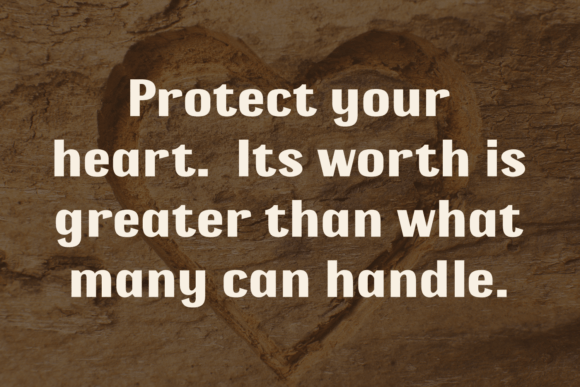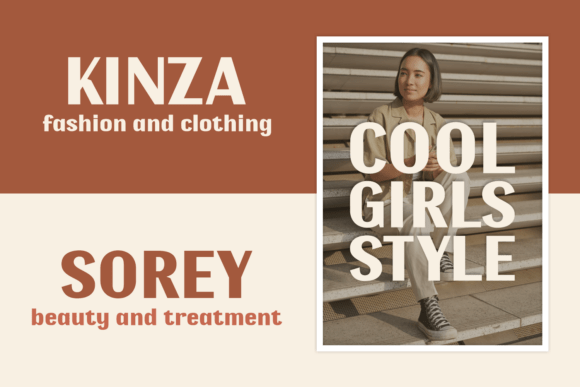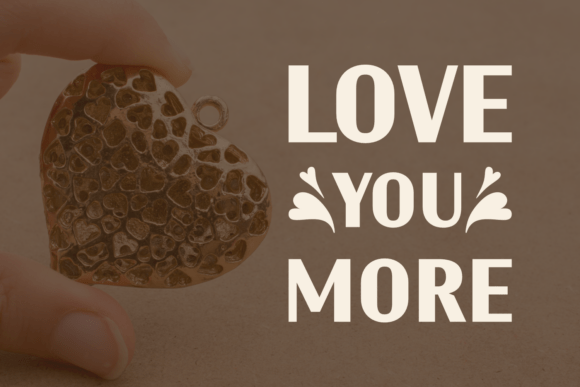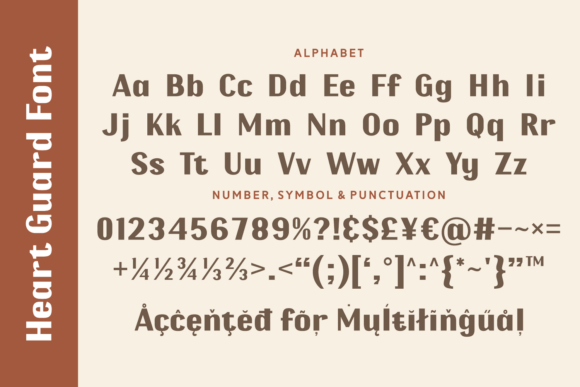
Introduction to Heart Guard Font
As a designer, you know that the right font can elevate your creative project from ordinary to extraordinary. It’s that moment when you stumble upon a font that perfectly captures the essence of your idea, and everything falls into place. For me, that moment came when I discovered the Heart Guard Font – a bold modern sans serif that exudes confidence and creativity.
With its quirky cuts and wide proportions, the Heart Guard Font is a game-changer for designers who want to add a touch of individuality to their work. Whether you’re working on a startup branding project or creating bold packaging, this font is a valuable resource that can help you stand out from the crowd.
Key Features of Heart Guard Font
- High-quality design resource for creative projects, perfect for graphic designers and artists.
- Unique, hand-drawn style with a transparent background, ideal for adding a touch of personality to your designs.
- Perfect for use in a variety of creative projects, from branding and marketing materials to artwork and illustrations.
Honest Review: Heart Guard Font
I recently stumbled upon the Heart Guard Font, and I must say it’s a promising design resource. The high-quality font has a lot to offer for creative projects, especially those with a romantic or nostalgic theme.
What works well: ✨ The Heart Guard Font comes with a transparent background, making it easy to use on any design element. It’s also a free download, which is a huge plus for designers on a budget. The font is highly customizable and can be easily adjusted to fit any project’s needs.
- Wide range of styles and weights
- Supports various languages
However, I did encounter some limitations: ⚠️ The font is not suitable for large-scale text, and it can become pixelated when resized. Additionally, the font’s ligature issues can cause problems with text alignment.
Overall, I think the Heart Guard Font is a solid design resource for designers who need a high-quality, customizable font for their creative projects. With some adjustments and careful use, it can be a valuable addition to any design arsenal.
The Heart Guard Font is a high-quality design resource ideal for creative projects. It features a transparent background, making it perfect for overlays, graphics, and other design elements.
Tips for Getting the Most Out of Heart Guard Font
Use the Heart Guard Font to add a personal touch to your designs. Experiment with different font sizes, colors, and styles to create unique and eye-catching graphics.
The Heart Guard Font is ideal for:
1. Social media graphics
2. Blog posts and articles
3. Business cards and marketing materials
4. Any creative project that requires a high-quality, transparent background font.